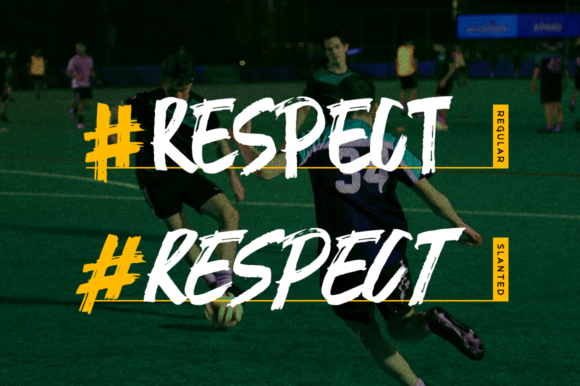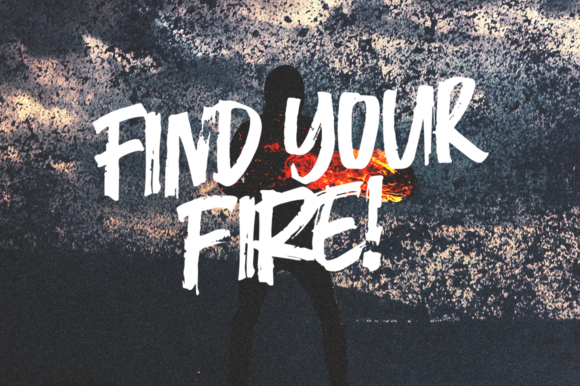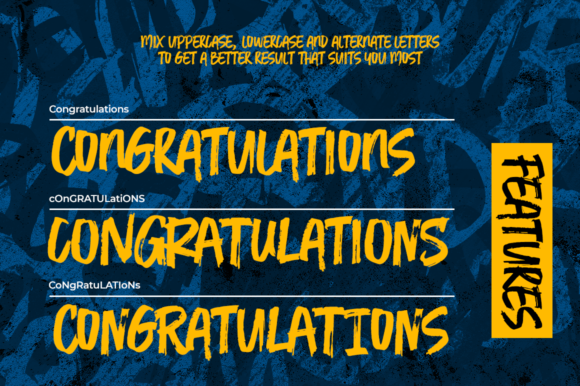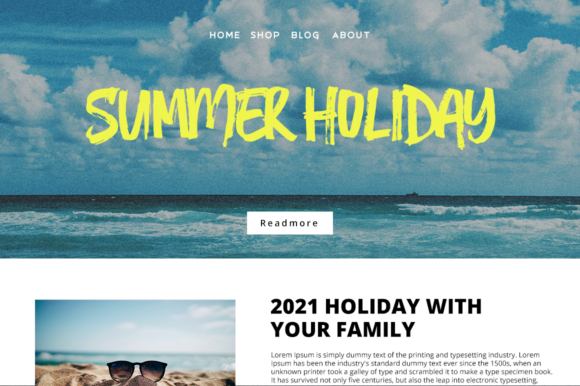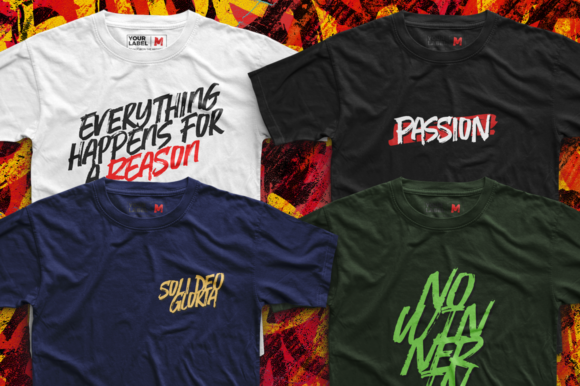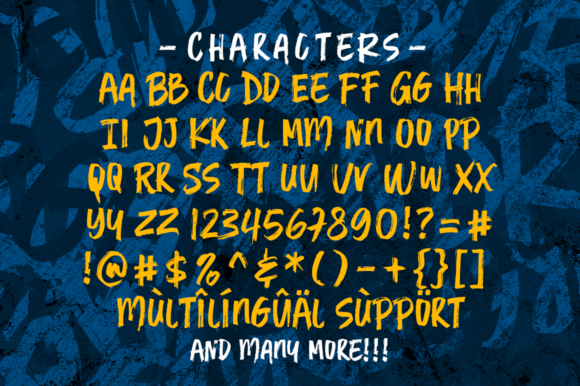
The Ultimate Display Font: A Deep Dive into Burgendry
I’ll never forget the time I was working on a project for a client who needed a font that would make their brand stand out. I had spent hours scouring the internet for the perfect font, but nothing seemed quite right. That was until I stumbled upon Burgendry, a cool and brushed display font that instantly caught my eye. In this article, I’ll share my experience with Burgendry, its features, and how to make the most of it in your designs.
An Honest Review of Burgendry
Burgendry has quickly become one of my go-to fonts, and for good reason. Here are some things I love about it:
- ✨ Unique and eye-catching design that’s perfect for making a statement
- ✅ Highly versatile and can be used for a wide range of projects, from logos to posters
- 💡 Excellent for headlines, titles, and short paragraphs of text
- 🎨 Works well with a variety of color schemes and design styles
Of course, no font is perfect, and Burgendry does have a few quirks:
- 🤔 May not be the best choice for body text or long paragraphs, as it can be a bit too bold
- ⚠️ Some users may find the brushed texture a bit too distressed for their taste
One of the standout features of Burgendry is its OpenType features and glyphs. These allow you to add more variety and creativity to your designs. Here are a few examples:
- Stylistic alternates: These allow you to switch between different versions of a letter or symbol
- Glyphs: These are special characters that can be used to add more interest to your design
- Ligatures: These are combinations of letters that can be used to create a more cohesive look
The Backstory of Burgendry
Burgendry was designed with the goal of creating a unique and eye-catching display font. The designer wanted to create a font that would stand out from the crowd and be perfect for making a statement. With its brushed texture and bold design, Burgendry is sure to turn heads.
| Font Name | Burgendry Font |
| Author | majestype |
| What is Burgendry? | Burgendry is a cool and brushed display font designed for making a statement. |
| What can I use Burgendry for? | Burgendry is perfect for headlines, titles, and short paragraphs of text, and can be used for a wide range of projects, from logos to posters. |
| Is Burgendry easy to read? | Yes, Burgendry is designed to be easy to read, even at smaller font sizes. |